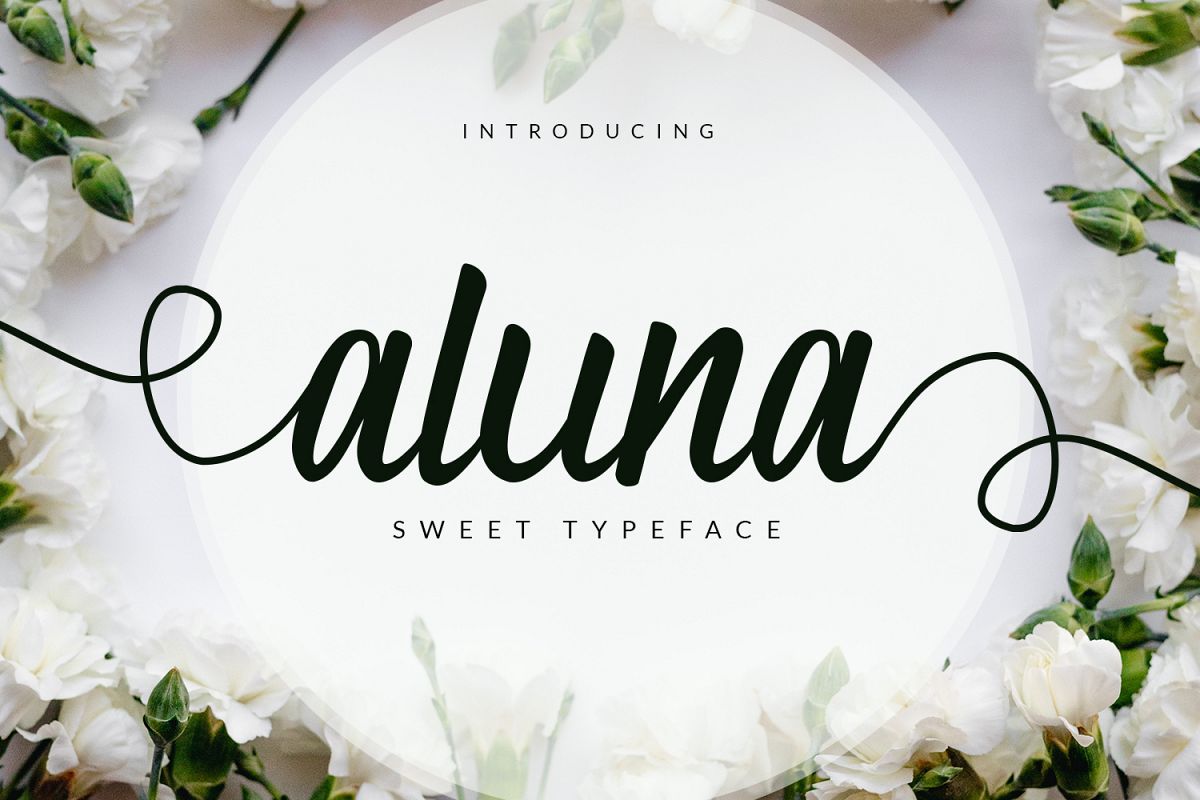
aluna
aluna-Regular
Aluna is a simple and cute font for beautiful design. Aluna font is great for invitation designs, greeting, wedding product, logo, personal quote,  or simply design with stylish text overlay to any background image. This font is PUA encoded, so you can easily access additional glyphs.
- alternate glyph for initial and terminal